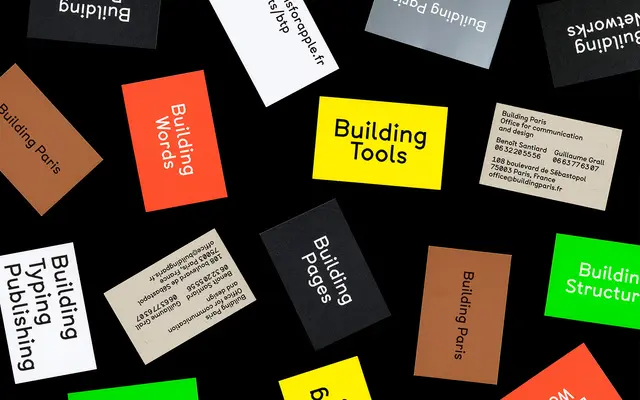
BTP
A is for · Jeremy Perrodeau, Guillaume Grall · 2011
A strictly angular typeface derived from AutoCAD's default stroke font, built with no curves and accompanied by a set of construction-themed pictograms.
Originating from a typographic experiment in issue #195 of the French magazine Étapes in 2011, BTP was developed by Jeremy Perrodeau and Guillaume Grall as a formal response to the lettering conventions of architectural drawing software. The family comes in Light and Normal weights, each with a rotated variant serving as an italic substitute, plus seven interpolated weights in an extended family. A set of around 30 pictograms, including brick walls and road patterns, can be used to create borders and decorative frames in the manner of traditional metal ornaments.
BTP is derived from the default AutoCAD stroke typeface, resulting in a strictly angular, single-stroke-inspired geometric construction with no curves. Its pictogram set and rotated italic variants place it firmly in the display category.